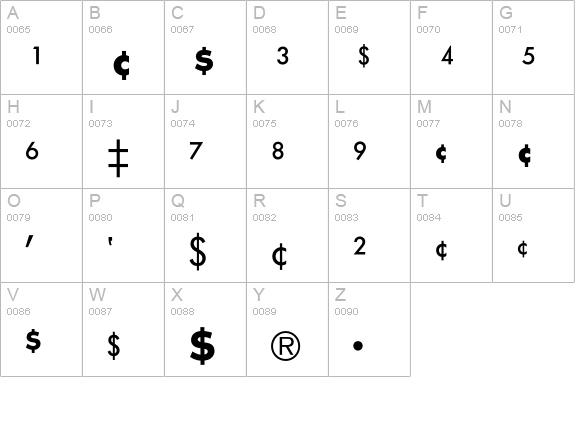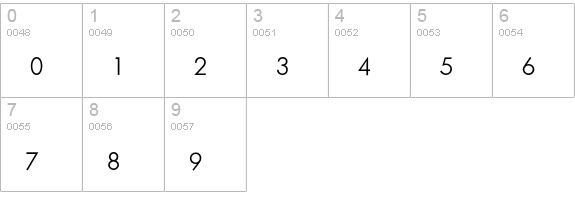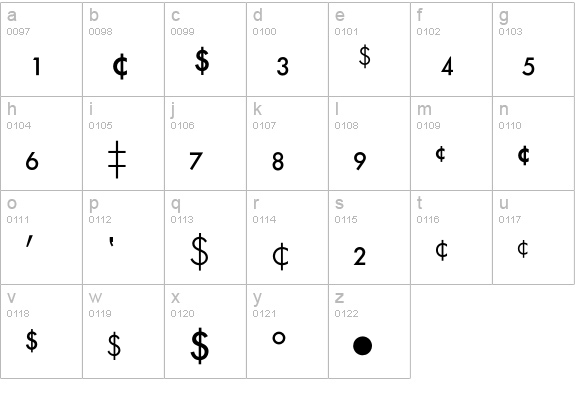
Futura Fractions Font Details
Futura Fractions font is a modern and sleek typeface designed specifically for displaying fractions in a clear and elegant way. With its geometric shapes and clean lines, this font is perfect for any design project that requires precise and easy-to-read fractions. The Futura Fractions font is versatile and can be used in a variety of contexts, from editorial design to web layouts. What makes this font even more appealing is that it is completely free to download at FontsMarket.com. You can access this high-quality font without any cost and enhance your projects with its professional and sophisticated look. Don't miss out on the opportunity to elevate your designs with the Futura Fractions font – download it today and add a touch of refinement to your work.